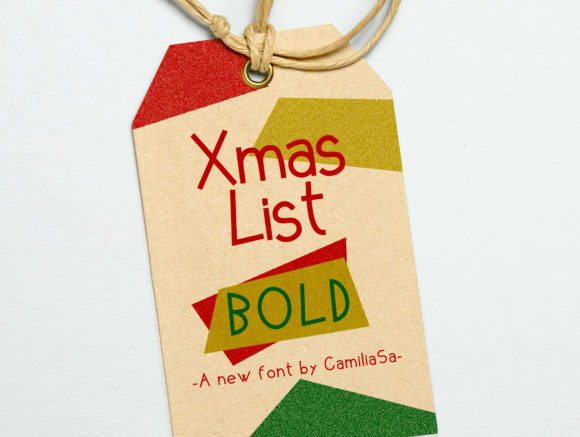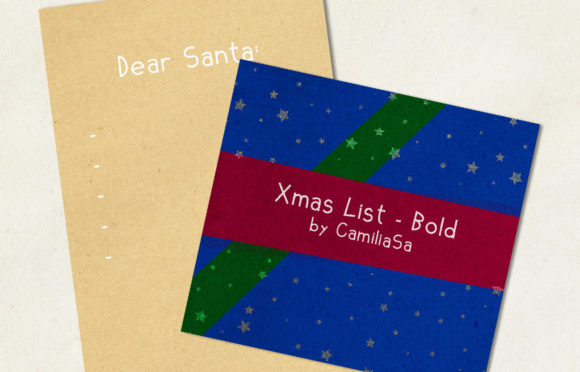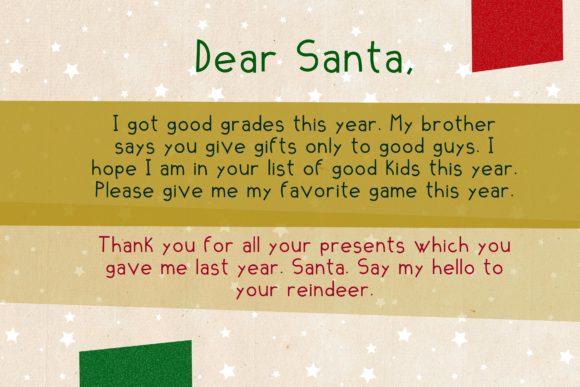
HomeScript FontsXmas List Bold Font Script Fonts Xmas List Bold Font FacebookXPinterestWhatsApp Xmas List Bold Font Poster 2 Xmas List Bold Font Poster 3 About Xmas List Bold Font Xmas List Bold is the perfect handmade font for the holiday season. Get inspired by its festive feel! DOWNLOAD NOW People also explored Mishela Font Retro Colours Font Somebody Font Halloween Spooky Font Chic Budapest Font Play Shapes Hexagons Font Velowley Font Moplintta Font Dripped Ink Font 391 0 TagsXmas List Bold Font Previous articleKingfisher FontNext articleDaytone Font LEAVE A REPLY Cancel reply Comment: Please enter your comment! Name:* Please enter your name here Email:* You have entered an incorrect email address! Please enter your email address here Website: Save my name, email, and website in this browser for the next time I comment. Personal Use Free Hello Sarrah Personal Use Free Read more about this font Abingdon Personal Use Free Read more about this font Gardening Personal Use Free Read more about this font Breakaway Personal Use Free Read more about this font BLOG Exploring Font Trends Shaping Communication in the Digital Era Fonts, like all design elements, are subject to trends. They play a crucial role in communicating a brand's personality,... Using Fonts in Digital Marketing: Tips to Strengthen Your Brand Identity Best Fonts for YouTube Videos: Make Your Thumbnails Stand Out How to Cut Any Font on Cricut: Convert a Font to SVG (Free)